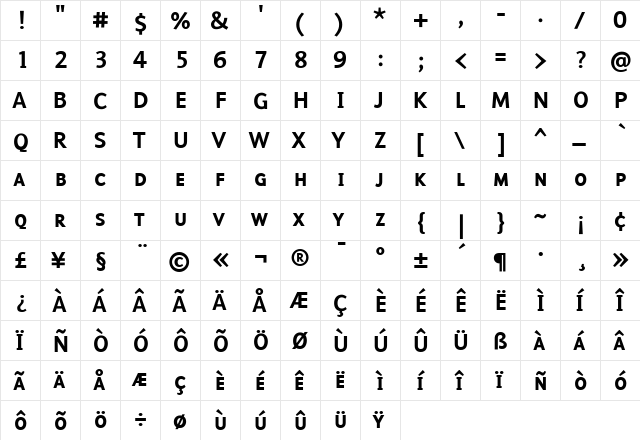
Malcom Medium
Design Context for Malcom Typeface
Malcom takes a measured approach to typography — its balanced proportions and neutral character make it a reliable workhorse for both digital and print work.
Pro Tip: Pair Malcom with a font of contrasting weight or personality to build a more expressive typographic hierarchy.